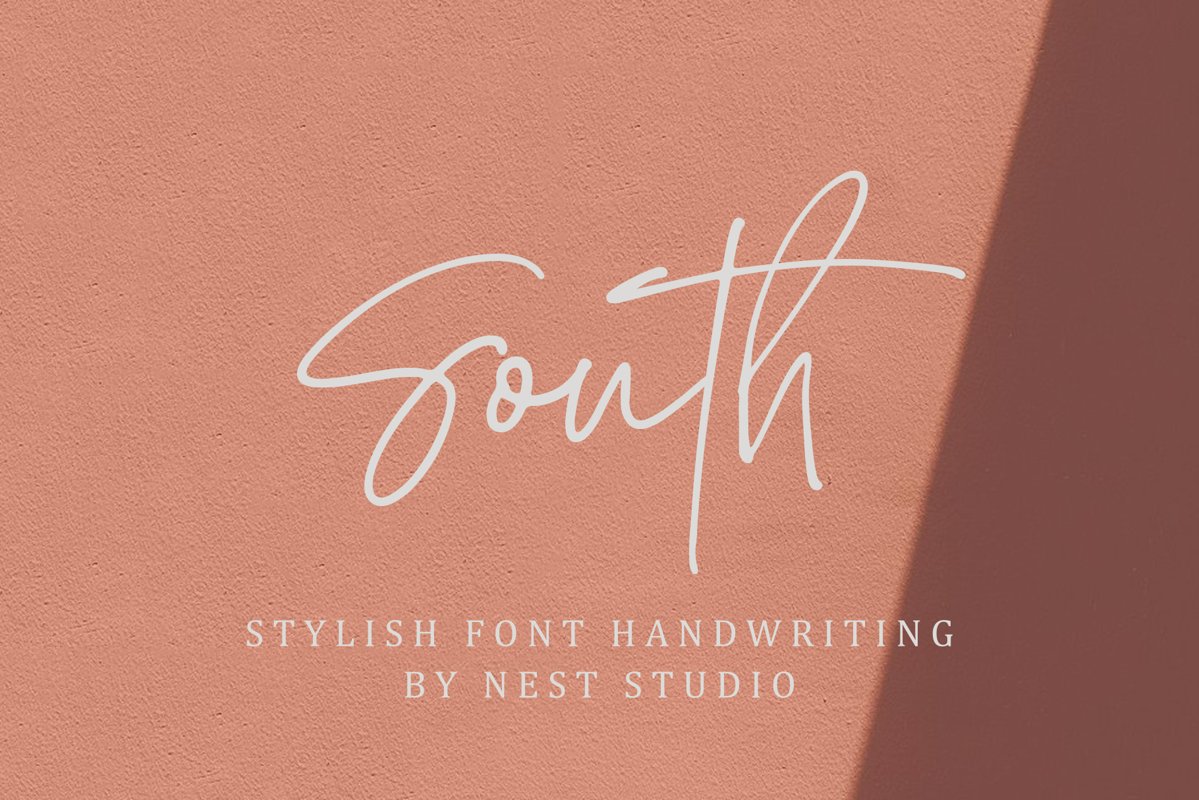
South handwritten
South
South is a modern calligraphy font in handwriting style. It's perfect for branding, wedding invitations and cards, poems or song lyrics
South includes a complete set of uppercase and lowercase letters, numbers, various punctuation marks.